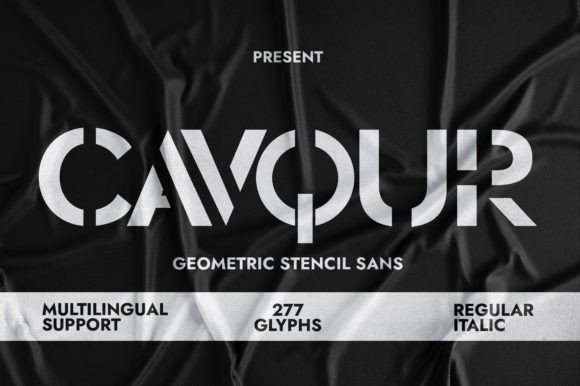
Unlock the Power of Bold Typography: Introducing Cavqur Font
Have you ever stared at a blank canvas, desperately searching for the perfect font to bring your design to life? That’s exactly what happened to us when we discovered the Cavqur Font – a geometric, stencil, and minimalist sans serif typeface that’s about to revolutionize your creative process.
This versatile font is designed to add an extra layer of sophistication to any project, whether you’re working on posters, videogames, apps, or music albums. Its unique shape construction makes it a standout choice for horror, sports, and futuristic themes, and its clean lines ensure it’s perfect for action-packed and mysterious narratives.
Add the Cavqur Font to your library today and get ready to take your designs to the next level. With its bold and modern aesthetic, it’s sure to enrich any creation and leave a lasting impression on your audience.
Cavqur Font Key Features
- Unique Characteristics: Cavqur Font features a distinctive, modern design with a unique blend of geometric and organic elements, making it suitable for a variety of applications, including logos, packaging, and editorial design.
- Weight and Style Options: Cavqur Font comes in multiple weights, from Light to Black, and various styles, including Regular, Italic, Bold, and Bold Italic, providing flexibility for designers to create visually appealing typography.
- Customizability: The font’s design allows for easy customization, making it an ideal choice for designers who want to create unique and personalized typography for their projects.
Cavqur Font Review
As a designer, I’ve had the chance to work with various fonts, and I’m here to share my honest thoughts on the Cavqur Font.
- Unique design: Cavqur Font has a distinctive style that sets it apart from other fonts in the market.
- Legibility: The font is easy to read, even at smaller sizes, making it a great choice for body text.
- Good for headlines: The font’s bold and playful nature makes it suitable for headlines and titles.
- Not suitable for body text in long-form content: Due to its playful nature, Cavqur Font can be distracting when used extensively in body text.
- Limited language support: The font may not be compatible with all languages, which can be a limitation for global projects.
- Not ideal for small text: The font’s bold design can make it difficult to read when used in small sizes.
Overall, the Cavqur Font is a great addition to any designer’s toolkit. While it may have some limitations, its unique design and good legibility make it a great choice for certain projects. With some careful planning and consideration, designers can make the most out of this font.
Cavqur Font is ideal for:
– Luxury branding and packaging design
– High-end typography and custom lettering
– Fashion and beauty branding
– Elegant wedding invitations and stationery